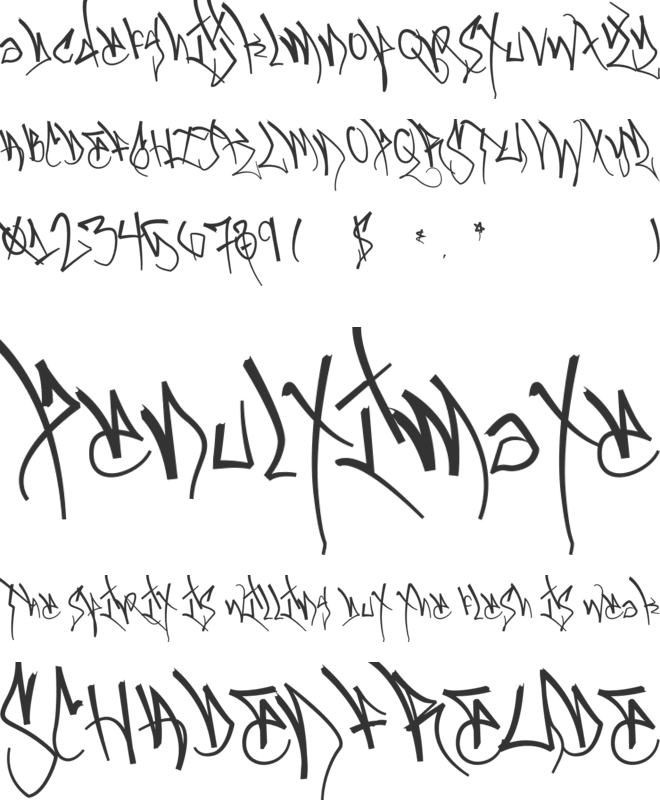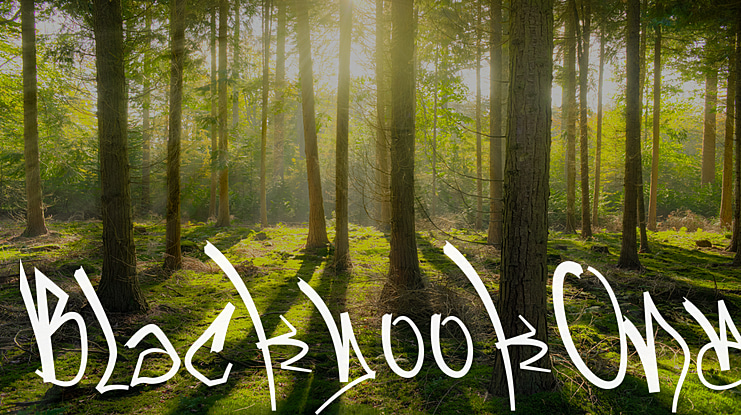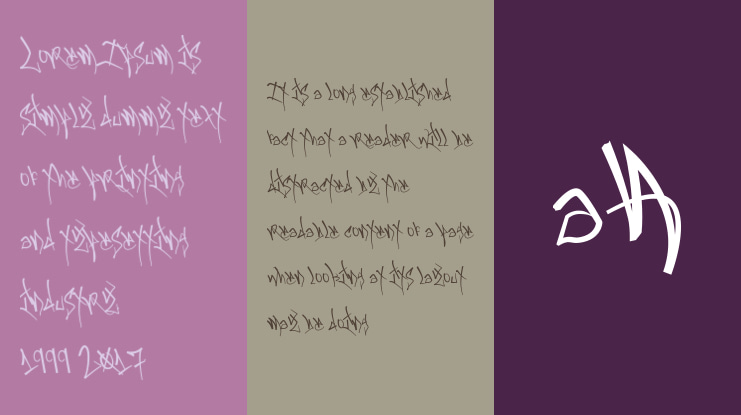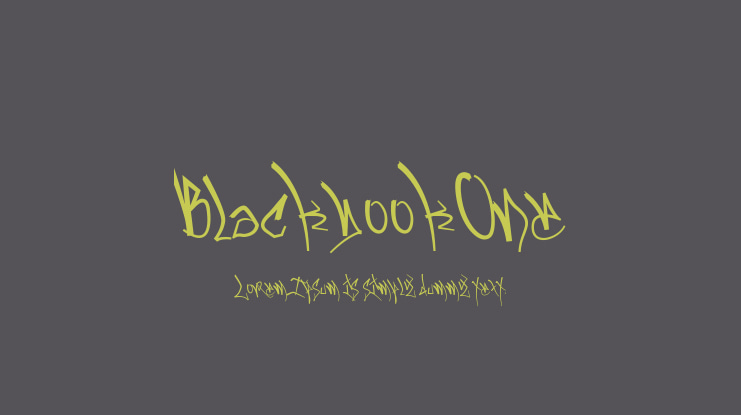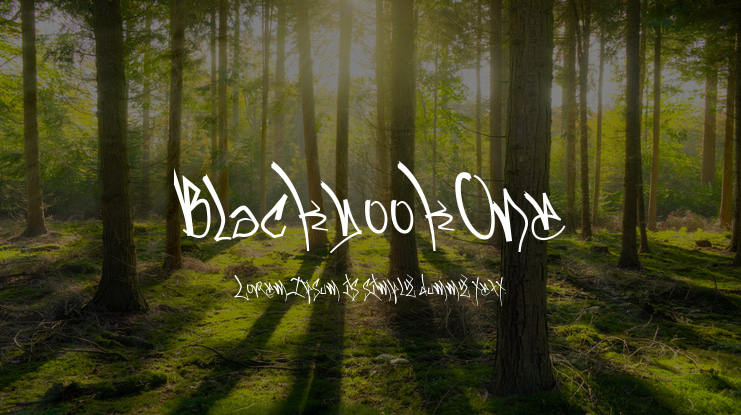
BlackbookOne Font
A collaboration between Louie Fortay (lootrituals.com) and Michael Muranaka
BlackbookOne is the first in a series of Blackbook Graffiti Fonts. Letters can be arranged and styled for limitless design possibilities, PERFECT for titling, background textures, CD art, etc. Bust out your designs then rock a B Boy stance-